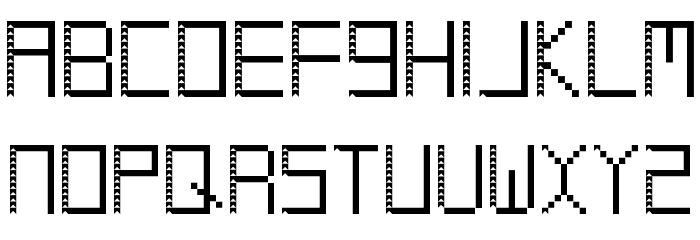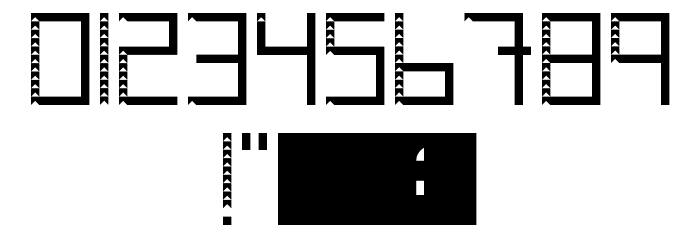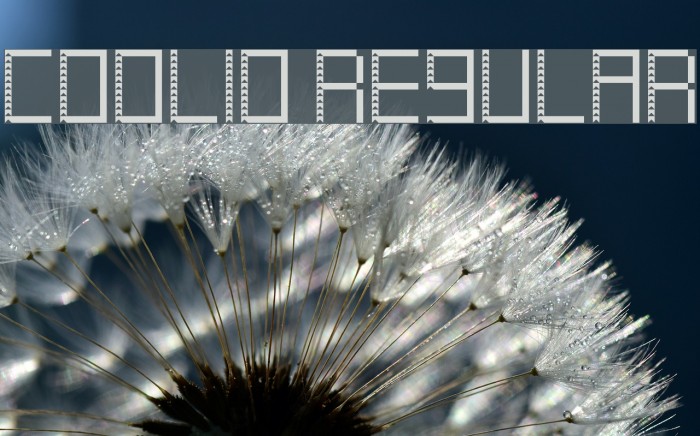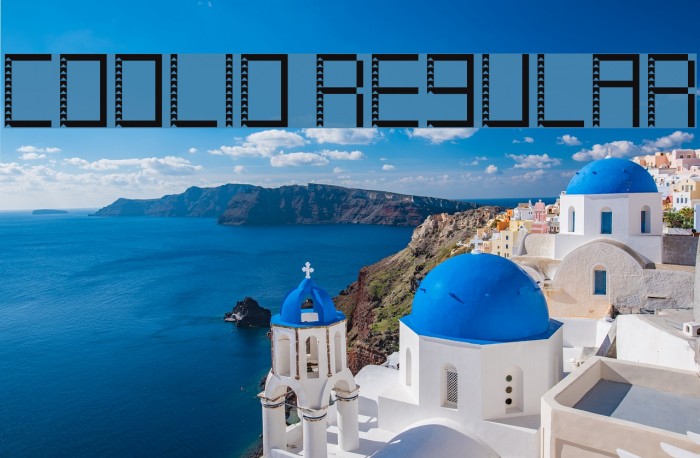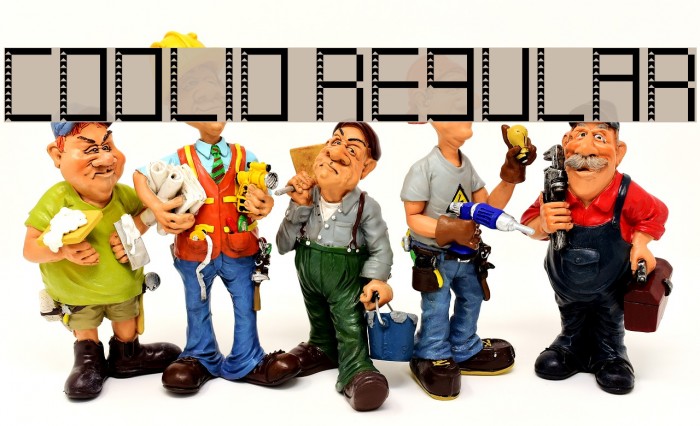
Coolio Regular Font
This font features a unique and modern design with a digital, pixelated aesthetic. Each character is constructed with a series of geometric shapes, giving it a futuristic and tech-inspired look. The letters are bold and distinct, with a consistent height and width that creates a uniform appearance. The use of diagonal lines and sharp angles adds a dynamic and edgy feel to the overall style. This font is particularly eye-catching and would stand out in any design project that requires a contemporary and innovative touch.
A modern, digital-inspired font with geometric shapes and a pixelated aesthetic.
- Proposed Projects: Ideal for tech-related branding, digital art projects, video game design, and futuristic-themed posters.